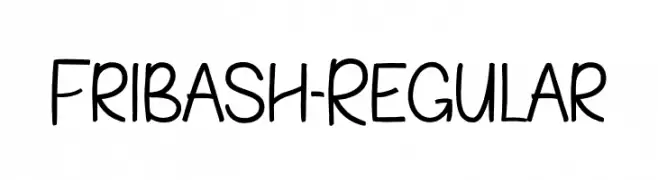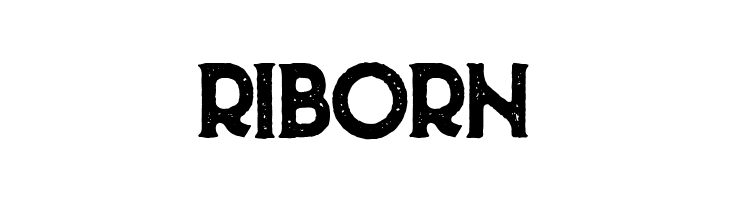
A bold, oblique font with a modern and dynamic style.
A bold, flowing script font with elegant cursive letterforms.
A bold, angular font with a tribal, ancient script aesthetic.
A dynamic and elegant script font with flowing, cursive letterforms.
A flowing, cursive font with elegant loops and swashes.
A playful, hand-drawn font with a quirky, sketch-like appearance.
A bold, distressed font with a vintage, handcrafted look.
A flowing, cursive font with elegant, elongated strokes and a sophisticated appearance.
A playful and elegant script font with a handwritten feel.
A playful, handwritten-style font with consistent stroke thickness and rounded edges.